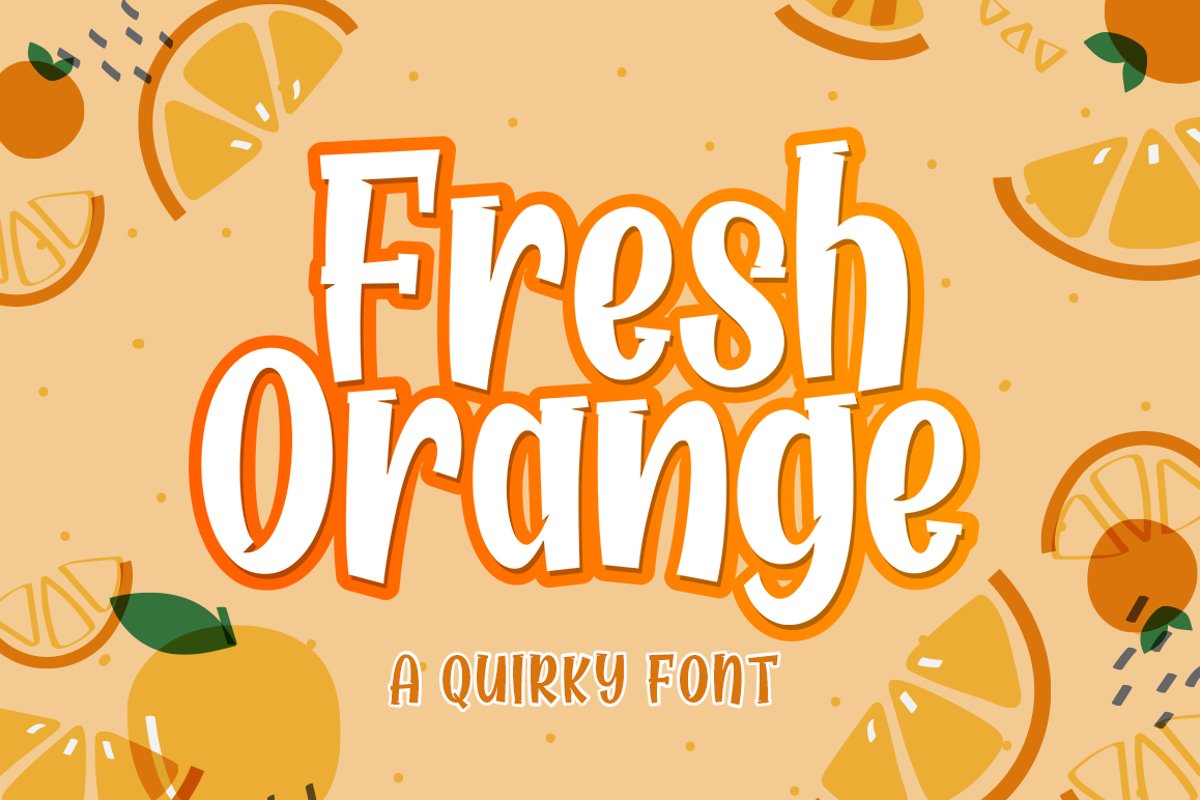
Fresh Orange
Fresh Orange Reguler
Fresh Orange Extrude
Fresh Orange is a type of font that presents a unique style for every design project such as cartoons, comics, poster designs, and so on.